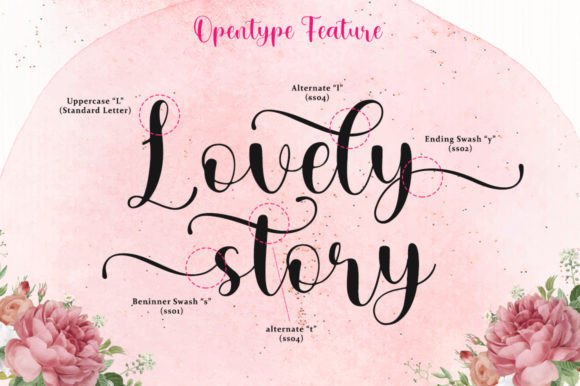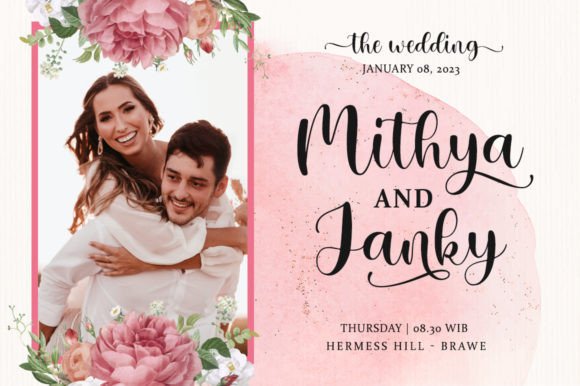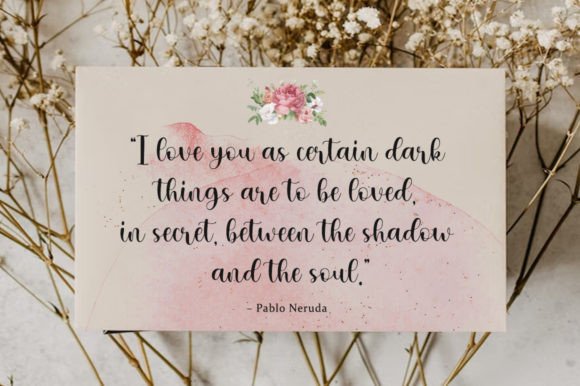
Introduction to Ginanitta Font
Imagine you’re sipping coffee, surrounded by endless ideas, and finally, you stumble upon the perfect font to bring your creative project to life. For designers, finding the right font can be a game-changer. It’s the missing piece that elevates your design from good to exceptional.
One such gem is the Ginanitta Font, a modern wedding calligraphy font that adds a touch of sophistication to any design. With its elegant handwriting look, this font is perfect for creating high-quality wedding stationery, logos, and branding. Whether you’re a seasoned designer or a beginner, the Ginanitta Font is a valuable resource that can take your designs to the next level.
Key Features of Ginanitta Font
- High-quality, unique design perfect for creative projects and designs.
- Includes a wide range of characters and glyphs for flexibility in design.
- Suitable for various design applications, including logos, typography, and graphics.
Honest Review: Ginanitta Font
As a designer, I’m always on the lookout for unique and high-quality design resources to elevate my creative projects. The Ginanitta Font is one such resource that caught my attention, and I’m excited to share my honest review with you.
What works well: ✨ The Ginanitta Font offers a range of stylish and elegant characters, making it perfect for designing elegant and sophisticated visual content. The font’s transparent background allows for seamless integration with any background, giving you complete control over the design process.
- Unique and stylish characters
Limitations: ⚠️ While the Ginanitta Font is an excellent resource, it may not be suitable for all design projects. Its elegant and sophisticated style may not be the best fit for bold or playful designs.
Overall, I’m impressed with the Ginanitta Font’s high quality and versatility. It’s a valuable addition to any design library, and I highly recommend it for designers working on creative projects that require a touch of elegance and sophistication.
Tips for Getting the Most Out of Ginanitta Font
For the best results, use the Ginanitta Font in combination with other high-quality design elements, such as images and graphics. Experiment with different font sizes, colors, and styles to find the perfect look for your creative project.
The Ginanitta Font is a versatile design resource that can be used for a wide range of applications, including logos, brochures, social media graphics, presentations, and documents. Its high-quality design and transparent background make it a popular choice for designers and non-designers alike.